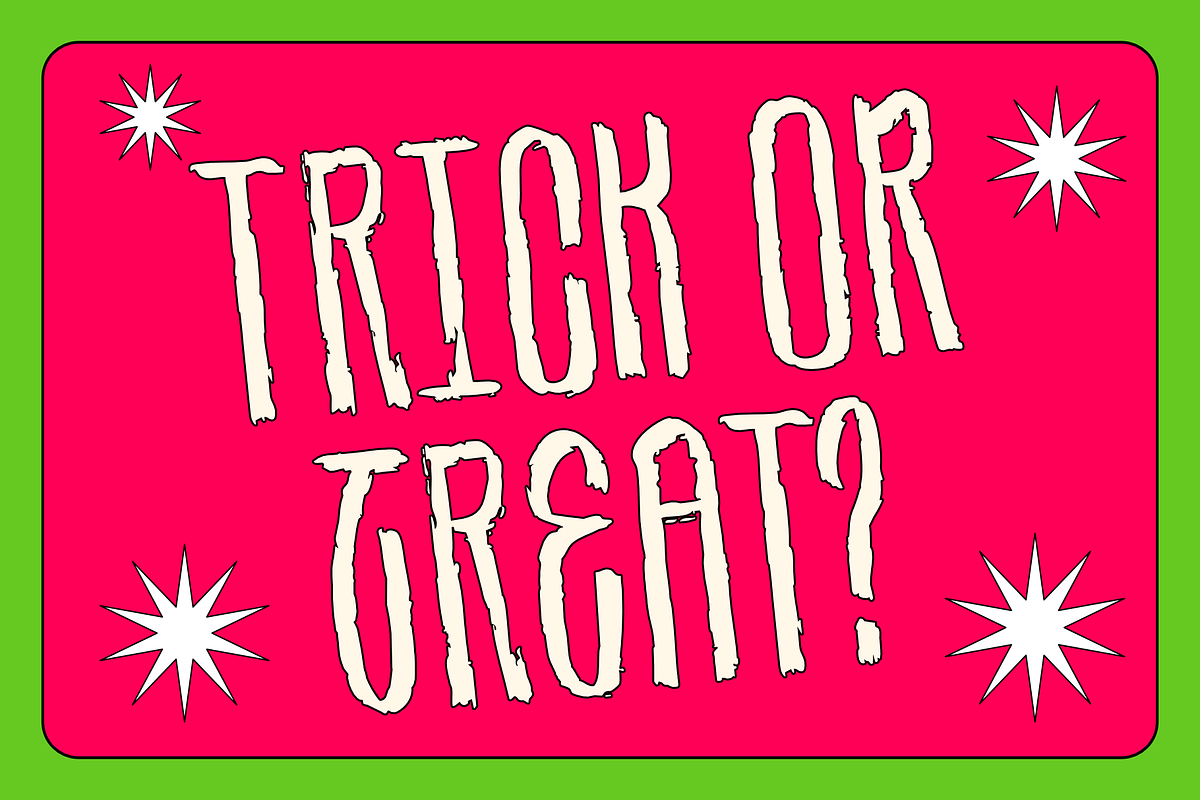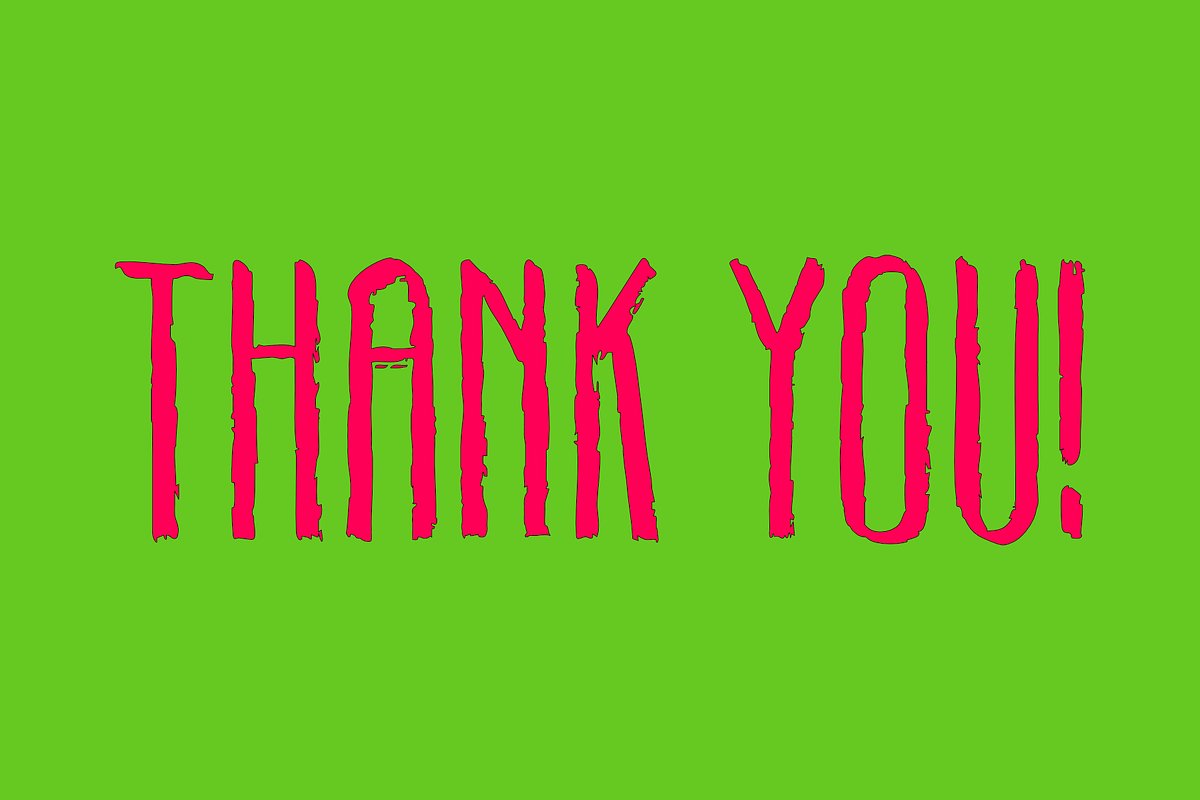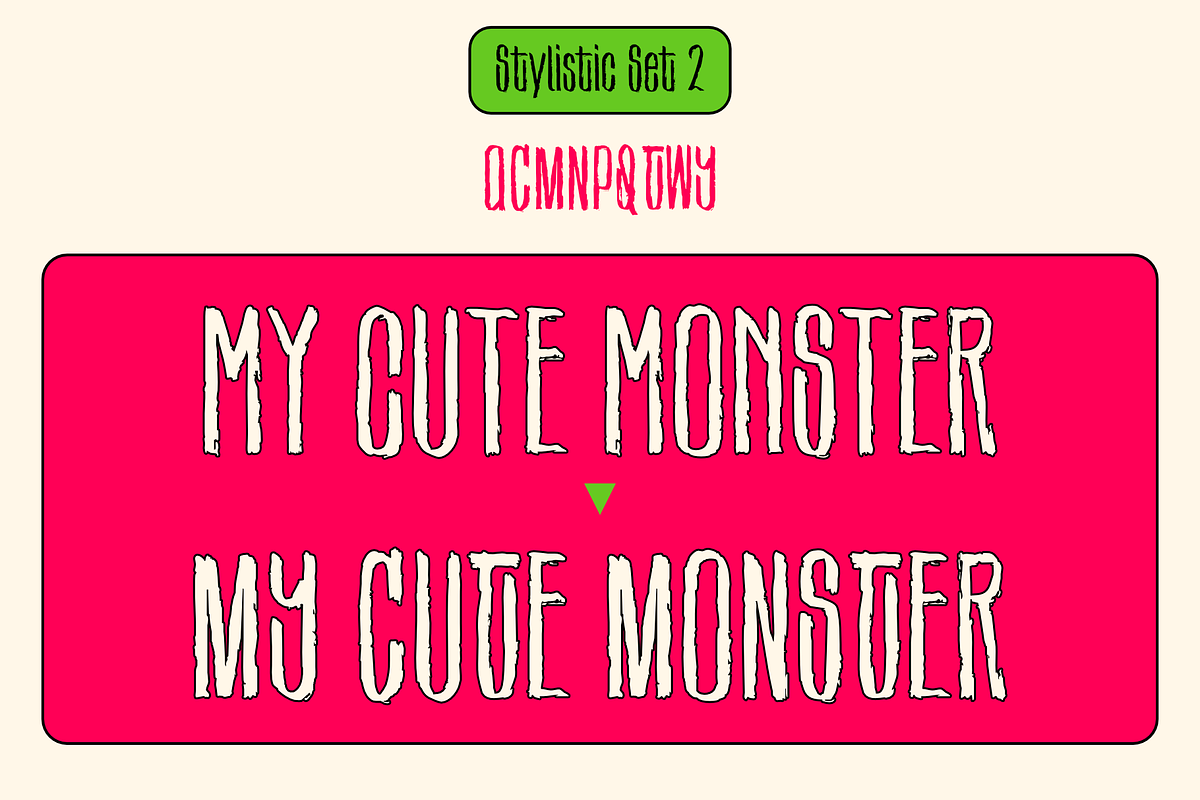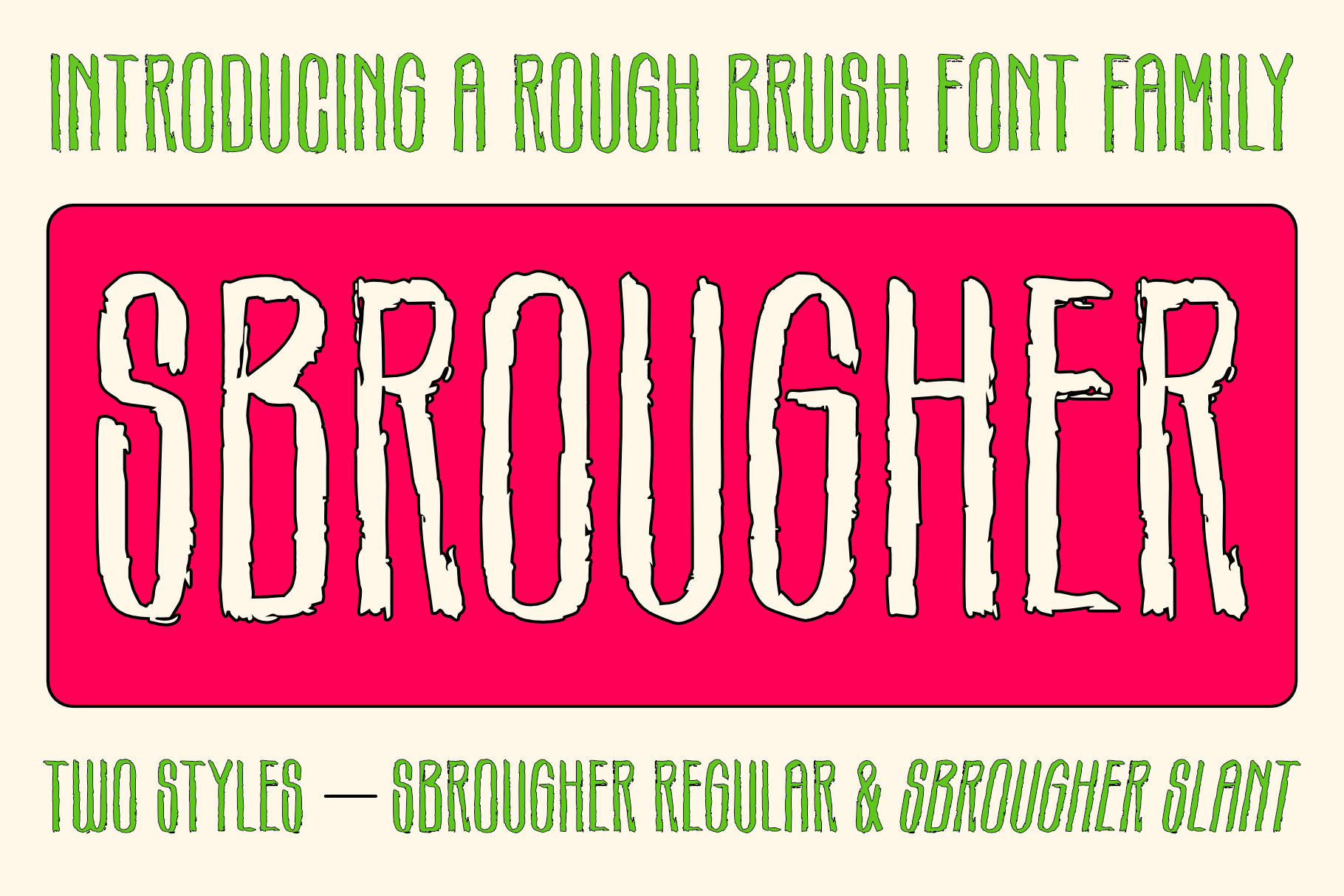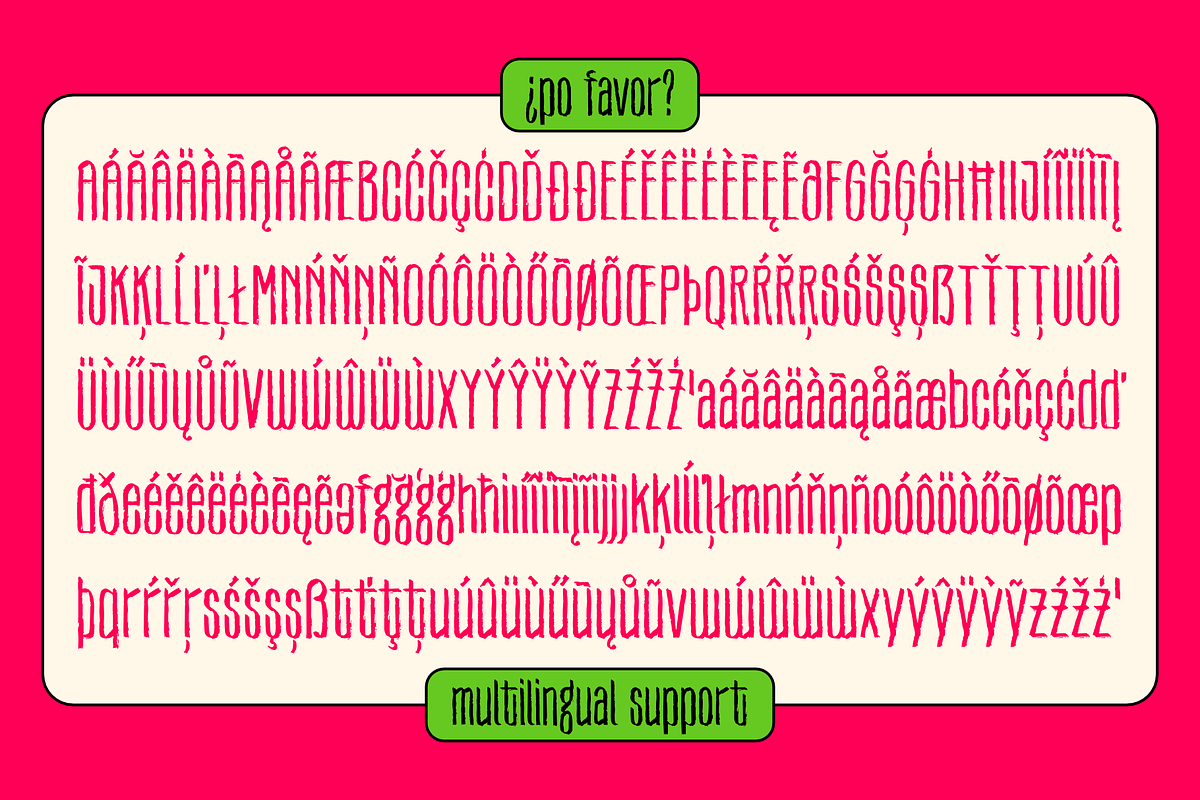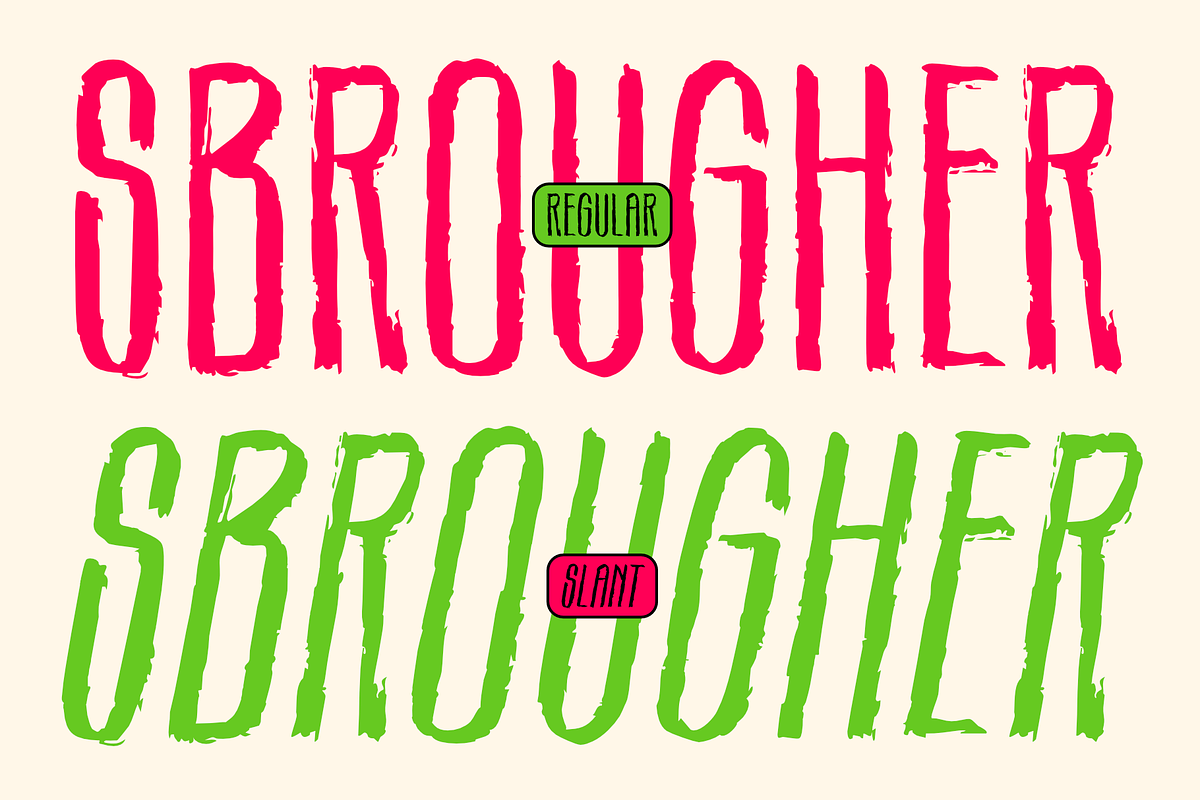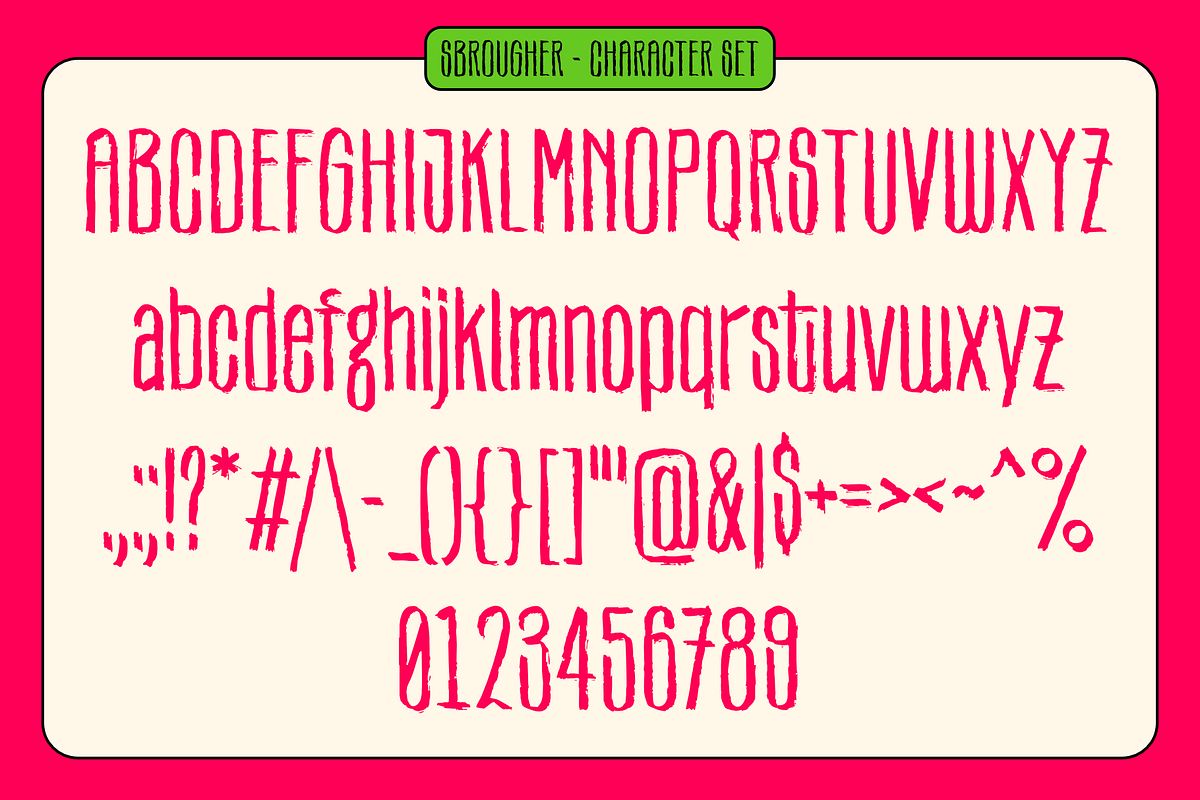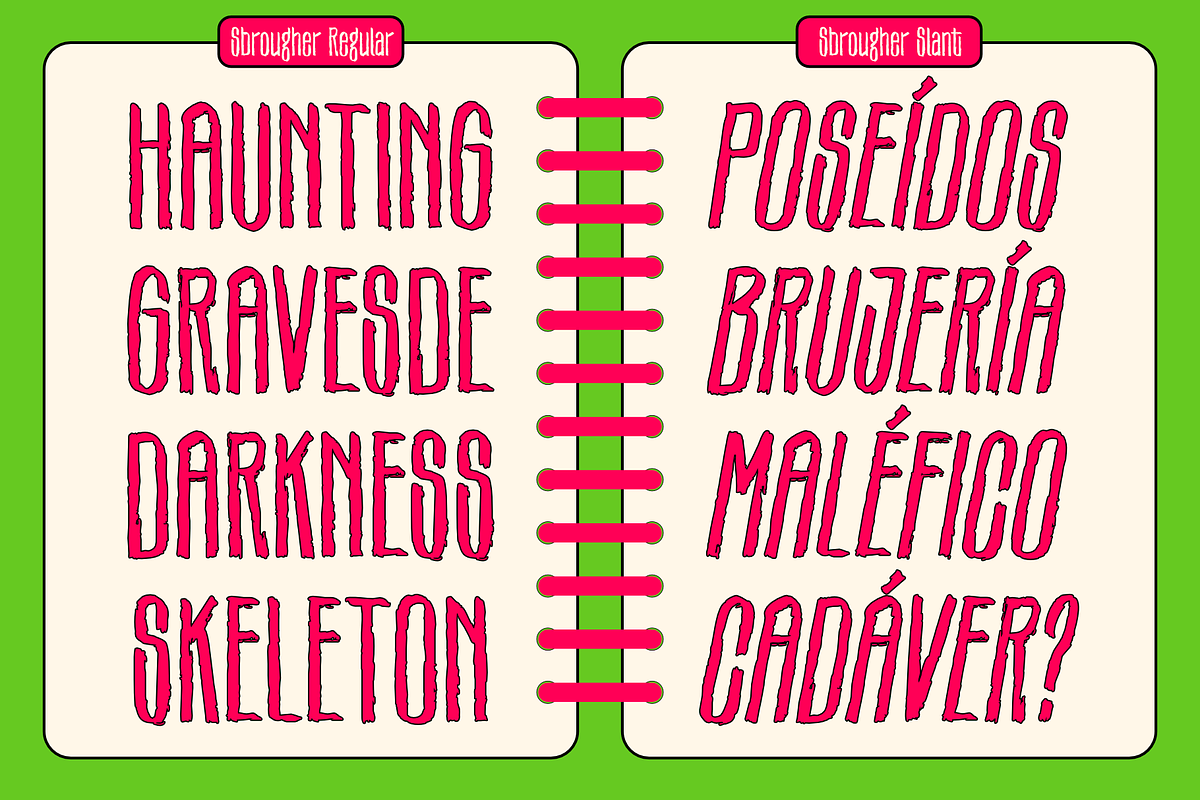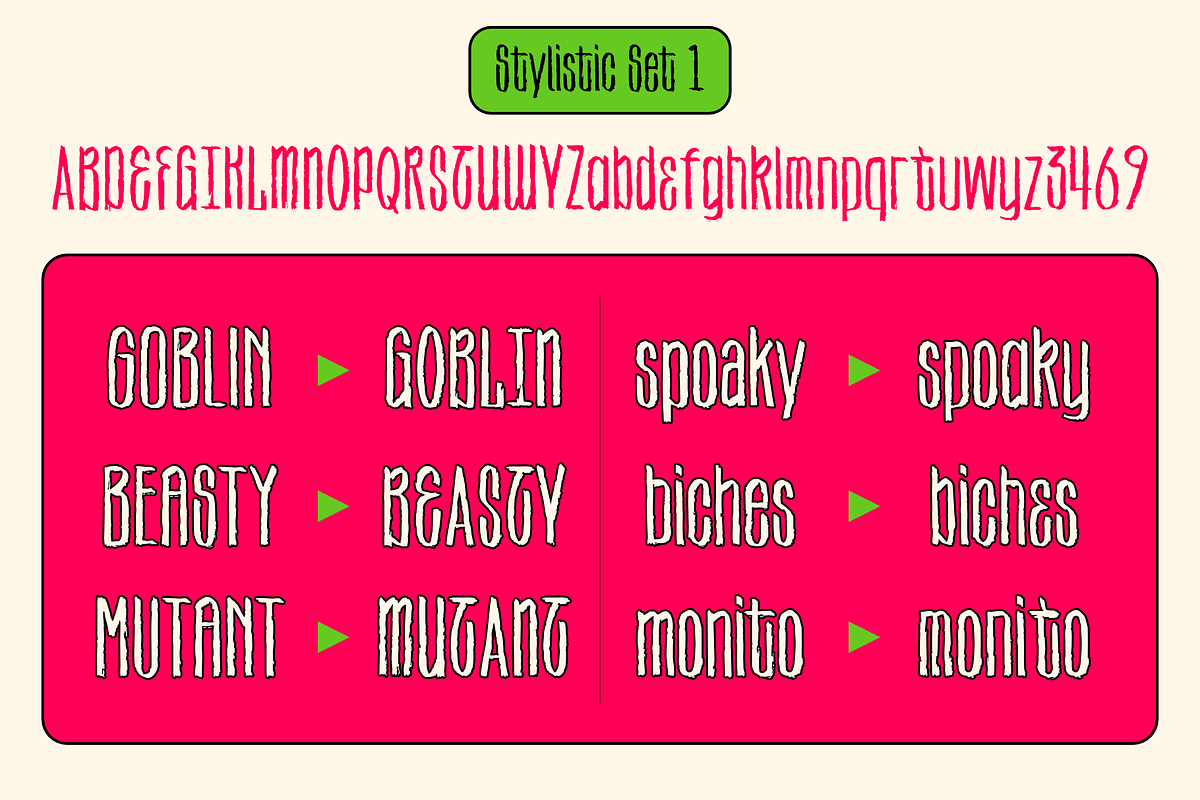
SBROUGHER — Rough Brush Font Family
SBROUGHER is a rough brush display font family with a tall, condensed shape and raw hand-painted texture. Designed to bring an energetic, imperfect, and slightly wild character to your typography.
The family includes two expressive styles — Regular and Slant — giving you more flexibility for creating dynamic headlines, posters, branding, packaging, apparel, and social media graphics.
SBROUGHER works especially well for horror and monster-themed designs, alternative branding, streetwear, music artwork, festival posters, and playful retro-inspired projects.
2 styles: Regular & Slant
Uppercase & lowercase
Stylistic Sets
Rough brush texture
Tall & condensed display proportions
Great for headlines and large typography
Make your type look rough, loud, and full of character with SBROUGHER.